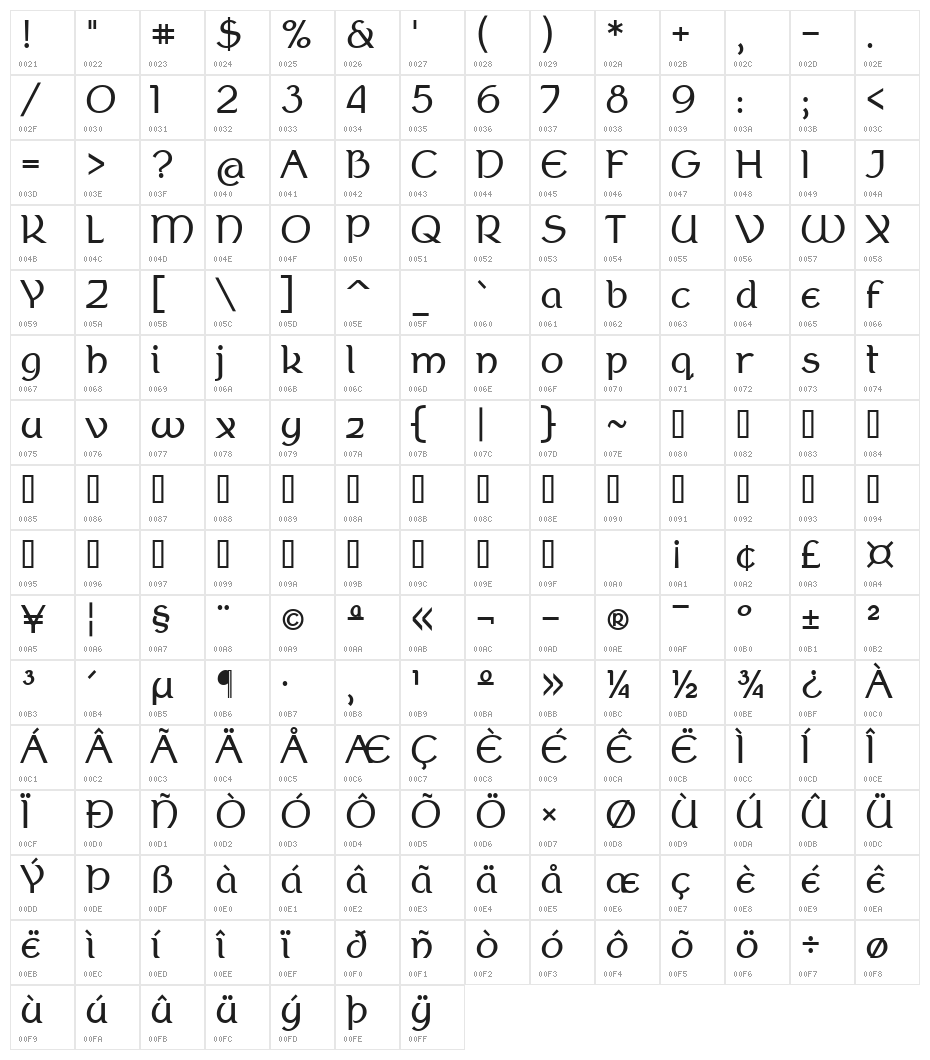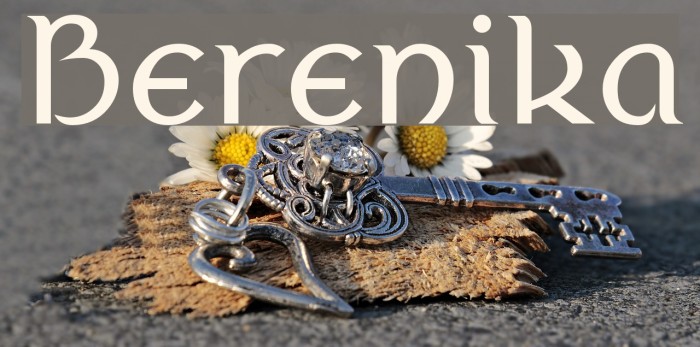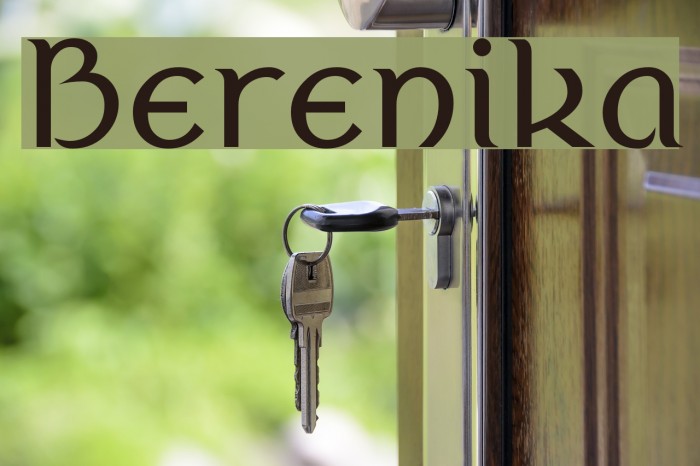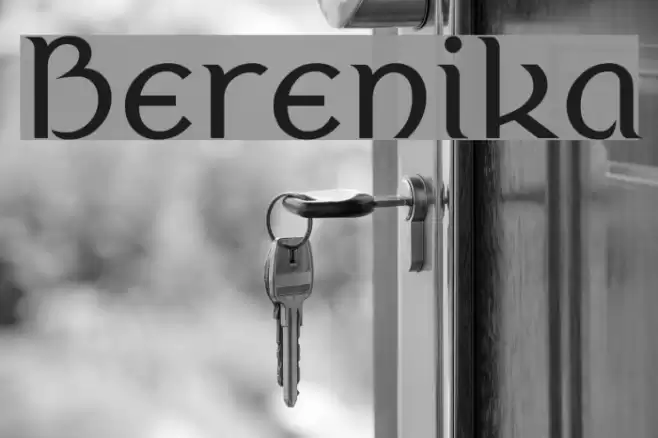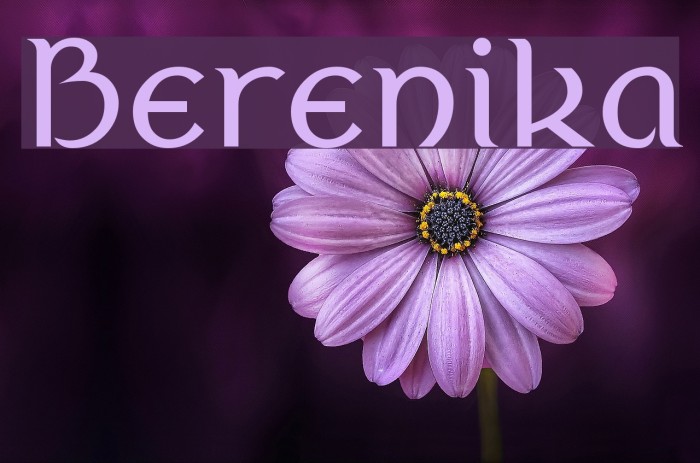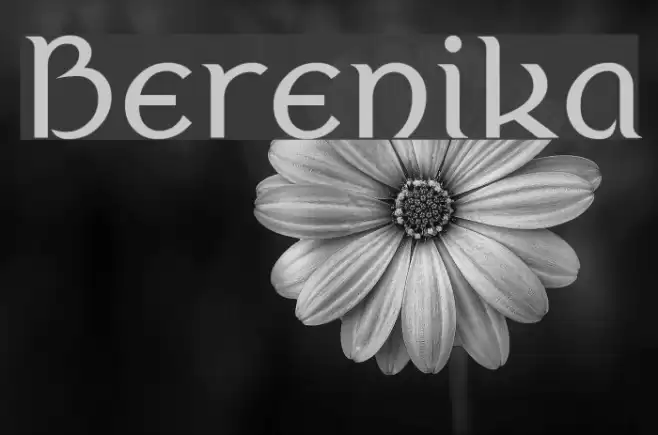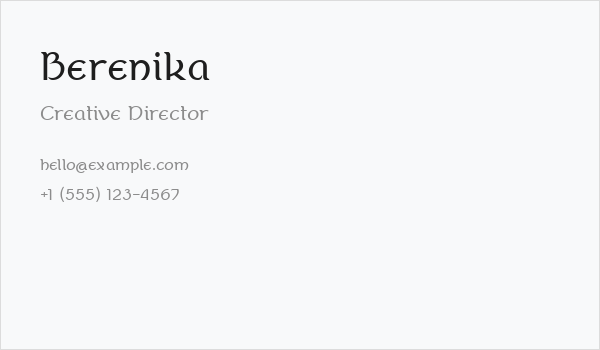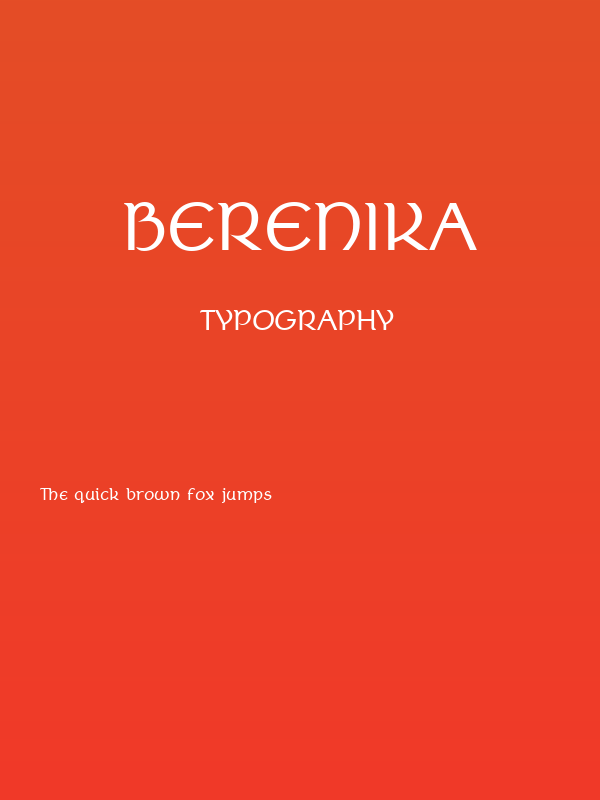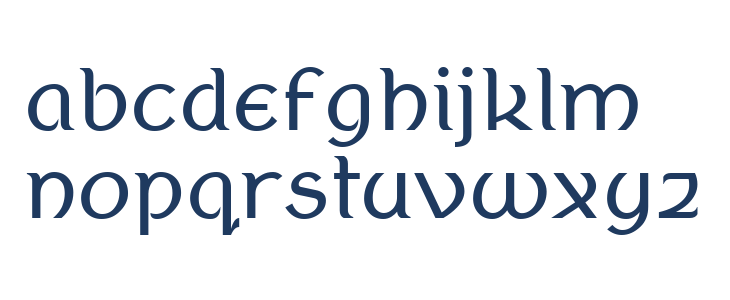
Berenika Font
Berenika Description
This font features a unique blend of modern and classic elements, characterized by its elegant curves and distinct serifs. The uppercase letters are bold and commanding, with a slight curvature that adds a touch of sophistication. The lowercase letters maintain a consistent style, with smooth transitions and a balanced appearance. The numerals are clear and legible, making them suitable for a variety of applications. Special characters are thoughtfully designed, ensuring they complement the overall aesthetic. The font's versatility makes it ideal for both digital and print media.